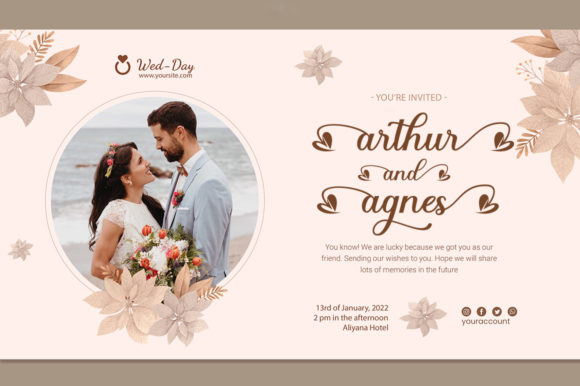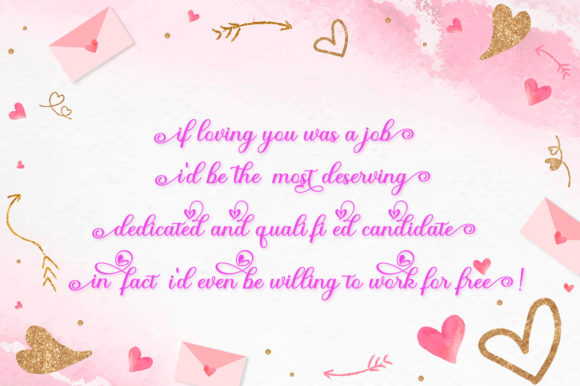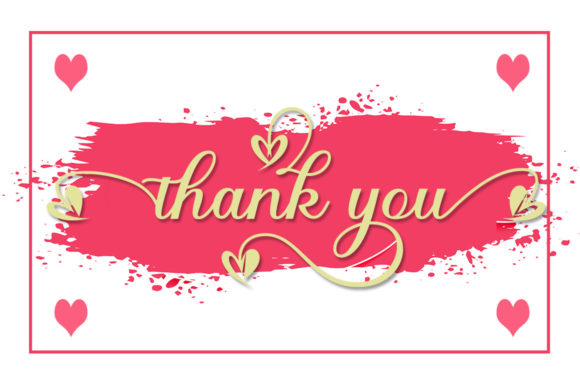
Hey Kayla is a new modern script font with an irregular baseline. Trendy and feminine, this font looks lovely on wedding invitations, thank you cards, quotes, greeting cards, logos, business cards, and more. Perfect for using in ink or watercolor.